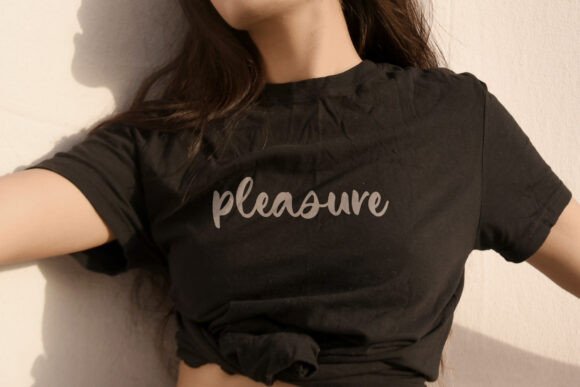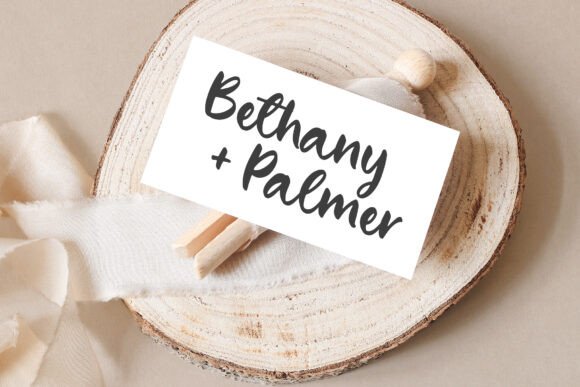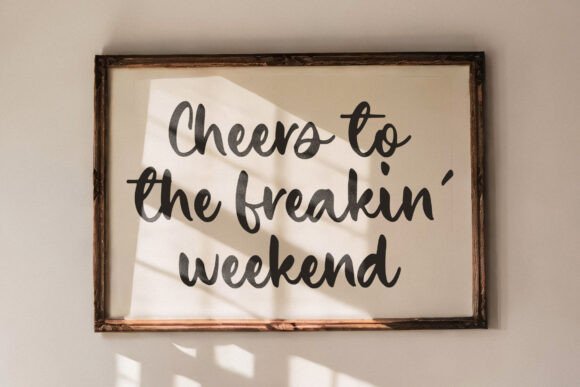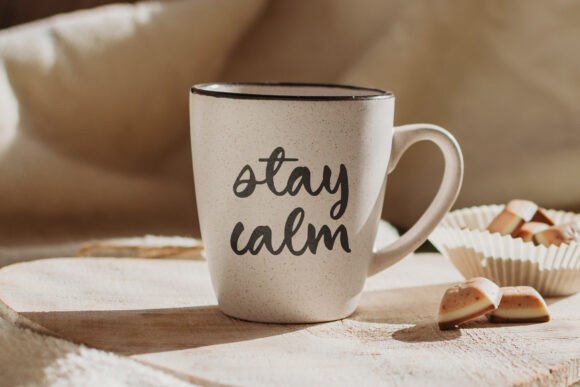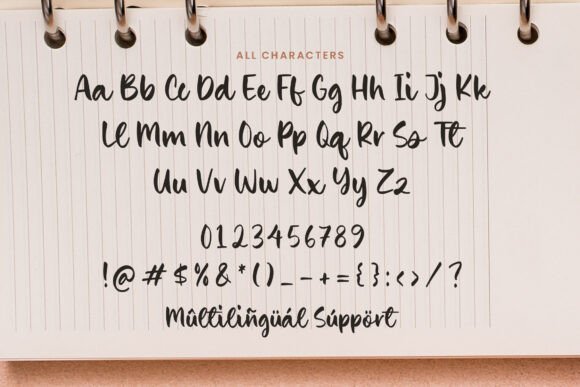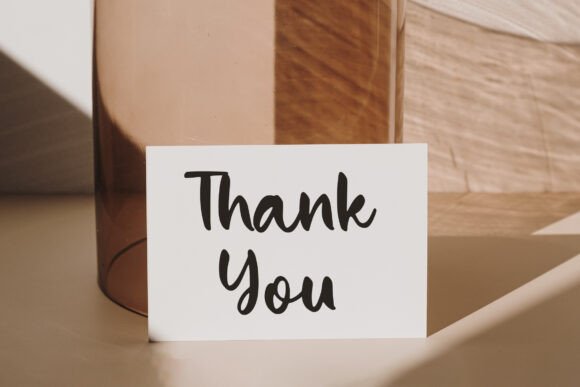
The Art of Elegant Typography: Unlocking the Potential of Andreas Palatte Font
Have you ever found yourself pouring over a beautiful, handwritten note from a loved one, mesmerized by the flowing strokes and personal touch? That’s exactly the kind of creative moment that the Andreas Palatte Font is designed to evoke.
This elegant handwritten script font is more than just a typographic tool – it’s a way to add sophistication and charm to your designs. With its carefully crafted letterforms and flowing curves, it’s perfect for creating refined logos, invitations, and branding that exudes timeless classicism. For designers, the Andreas Palatte Font offers a valuable opportunity to bring a touch of artistry and personality to their work, making each project feel uniquely expressive and stylish.
Key Features of Andreas Palatino Font
- Unique Characteristics: Classic, elegant, and refined design, reminiscent of traditional calligraphy; suitable for formal and professional applications
Designer Review: Andreas Palatte Font
The Andreas Palatte Font is a beautiful and elegant script font that can add a touch of sophistication to any design project. ✨ One of the things that stands out about this font is its versatility – it works well for both formal and informal designs, from wedding invitations to branding materials.
- Legibility:** The font is highly legible, even at smaller font sizes, making it suitable for a wide range of applications.
- Expressiveness:** The script style of the font gives it a lot of character and expressiveness, which can be used to convey a sense of elegance and refinement.
However, there are a few limitations to consider. ⚠️ The font may not be the best choice for designs that require a lot of bold or italic text, as the bold and italic versions can appear somewhat inconsistent. Additionally, the font may not be as suitable for designs that require a lot of condensed or compressed text.
Overall, I would say that the Andreas Palatte Font is a great choice for designers who are looking for a elegant and sophisticated script font. While it may have some limitations, its versatility and expressiveness make it a great addition to any design project.
Tips for Getting the Most Out of Andreas Palatte Font
Use Andreas Palatte font to create elegant and sophisticated designs.
Pair it with simple backgrounds and bold colors to make it stand out.
Use it for headings and titles to add a touch of elegance to your design.
Andreas Palatte font is perfect for:
Business cards and marketing materials.
Editorial and design magazines.